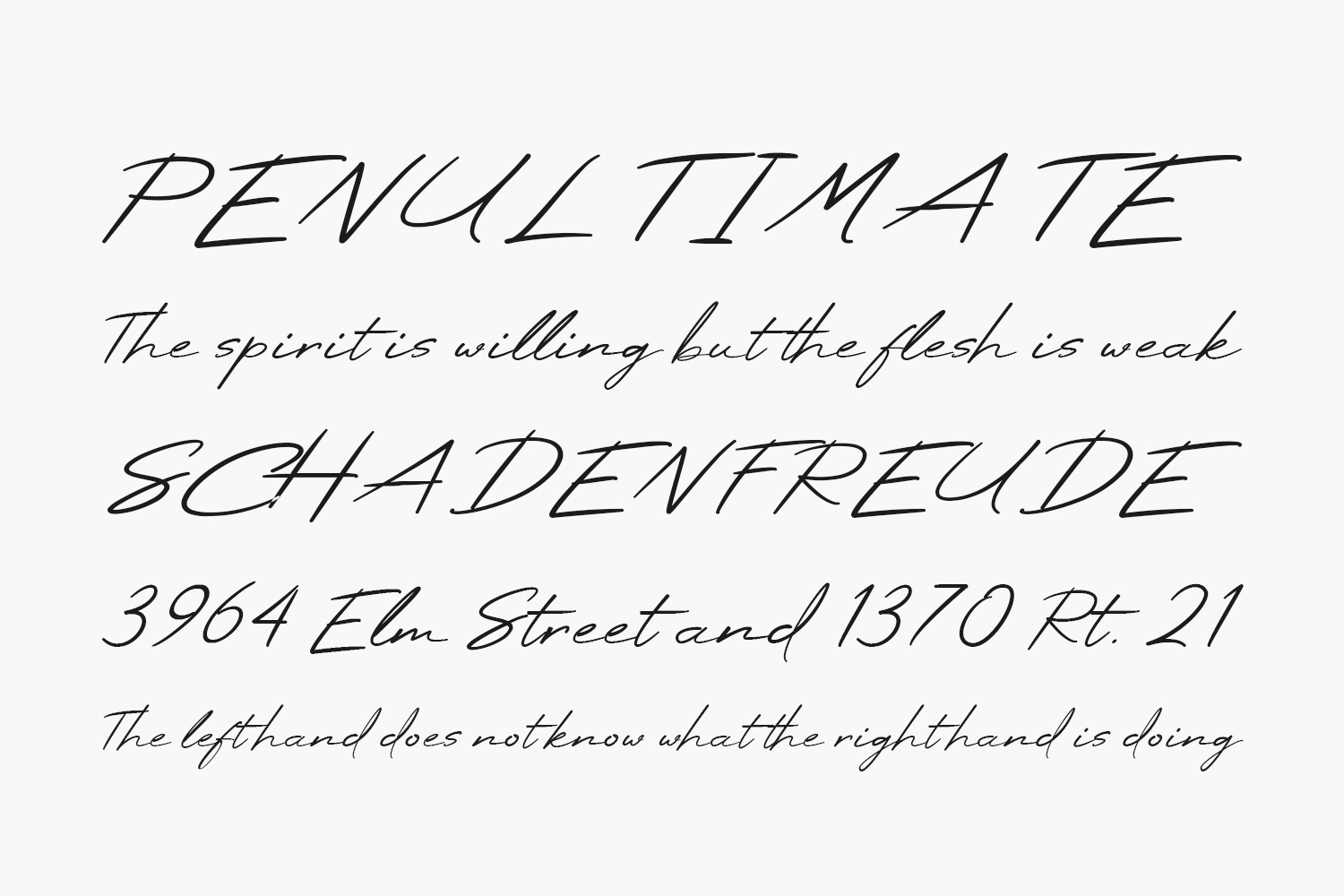
High Summit Free Font is an elegant signature font. This font has special features. It can be used on your project, photography, name tag, quotes, and etc. This font is free for personal and commercial use.